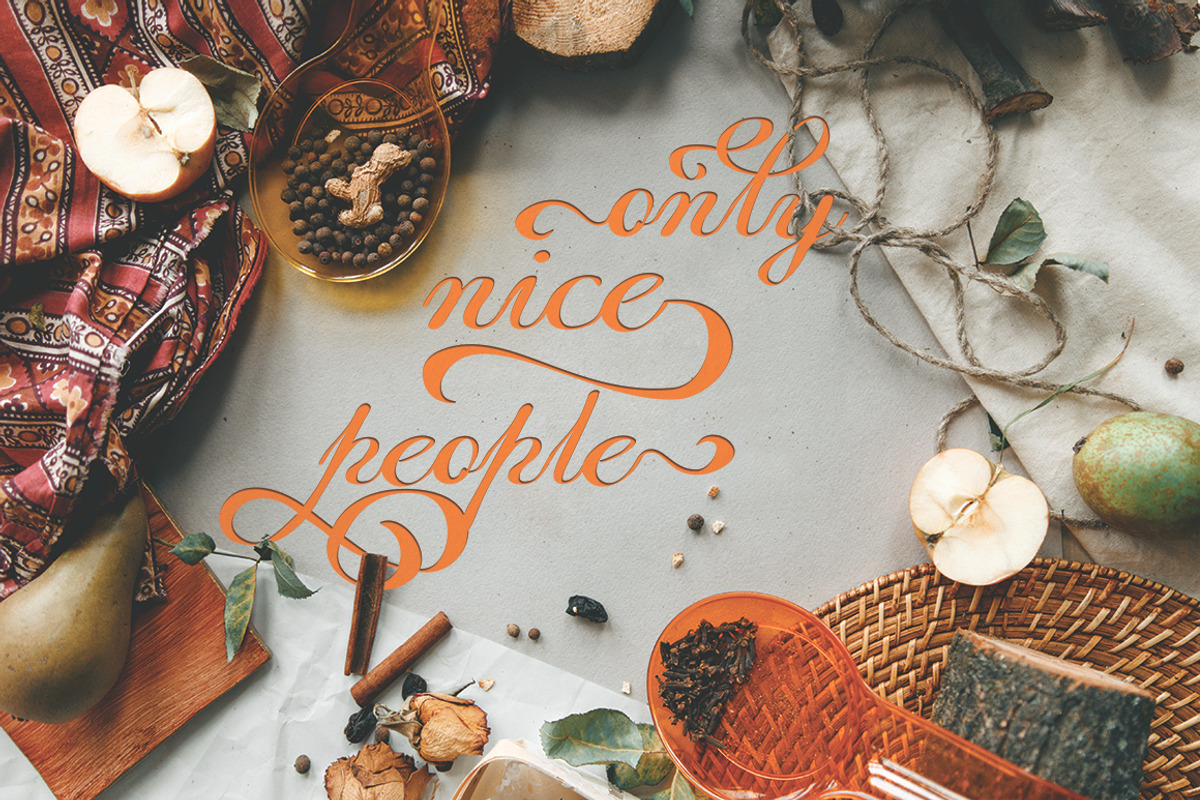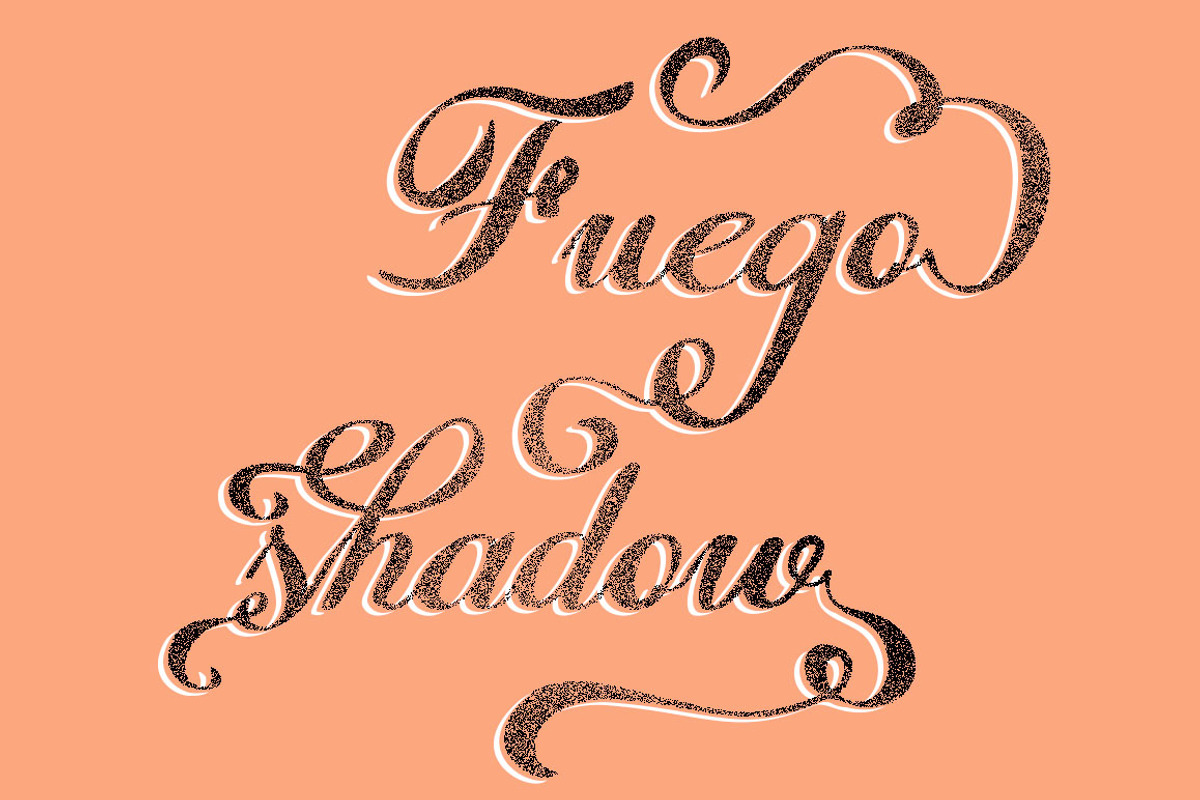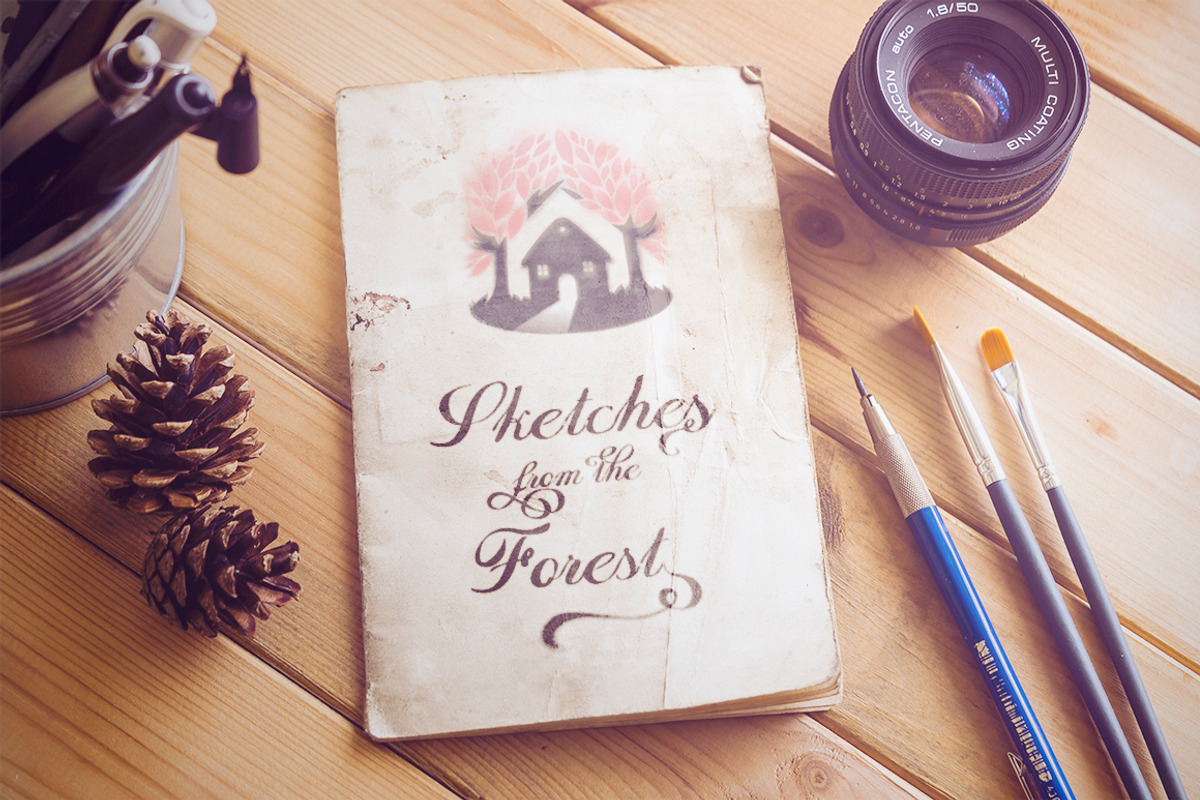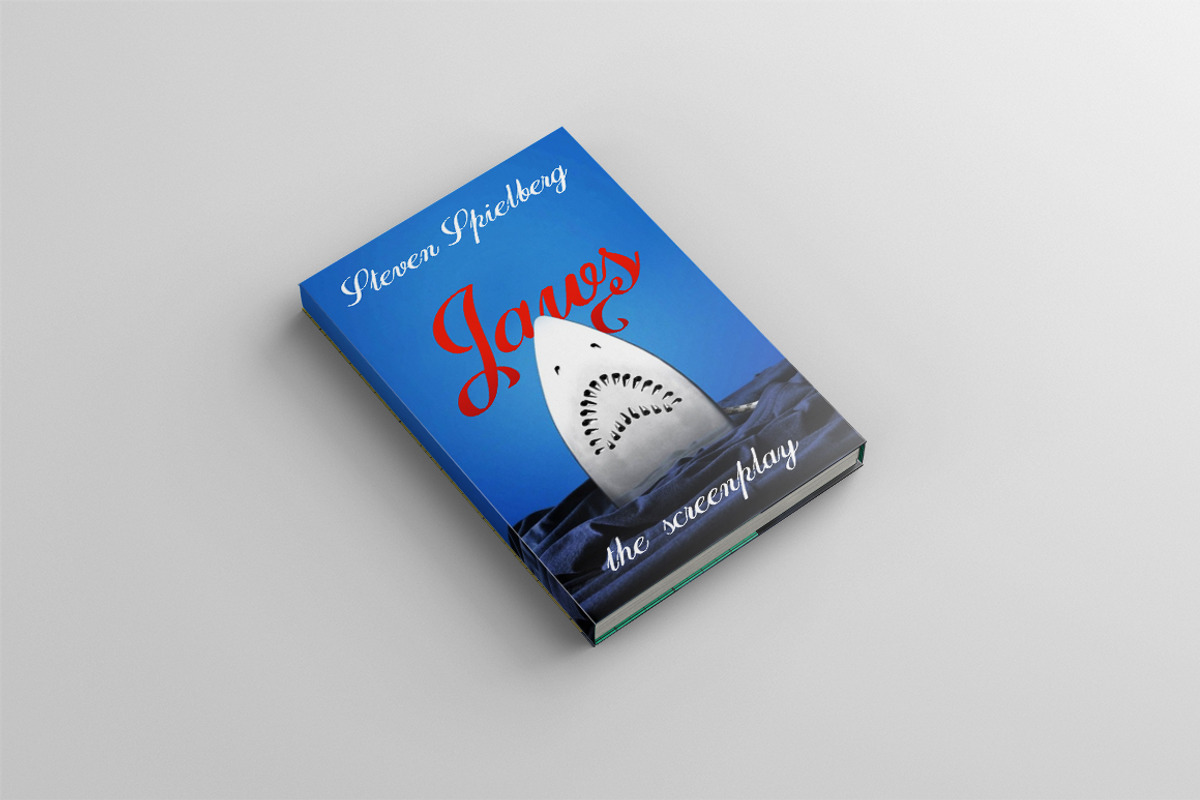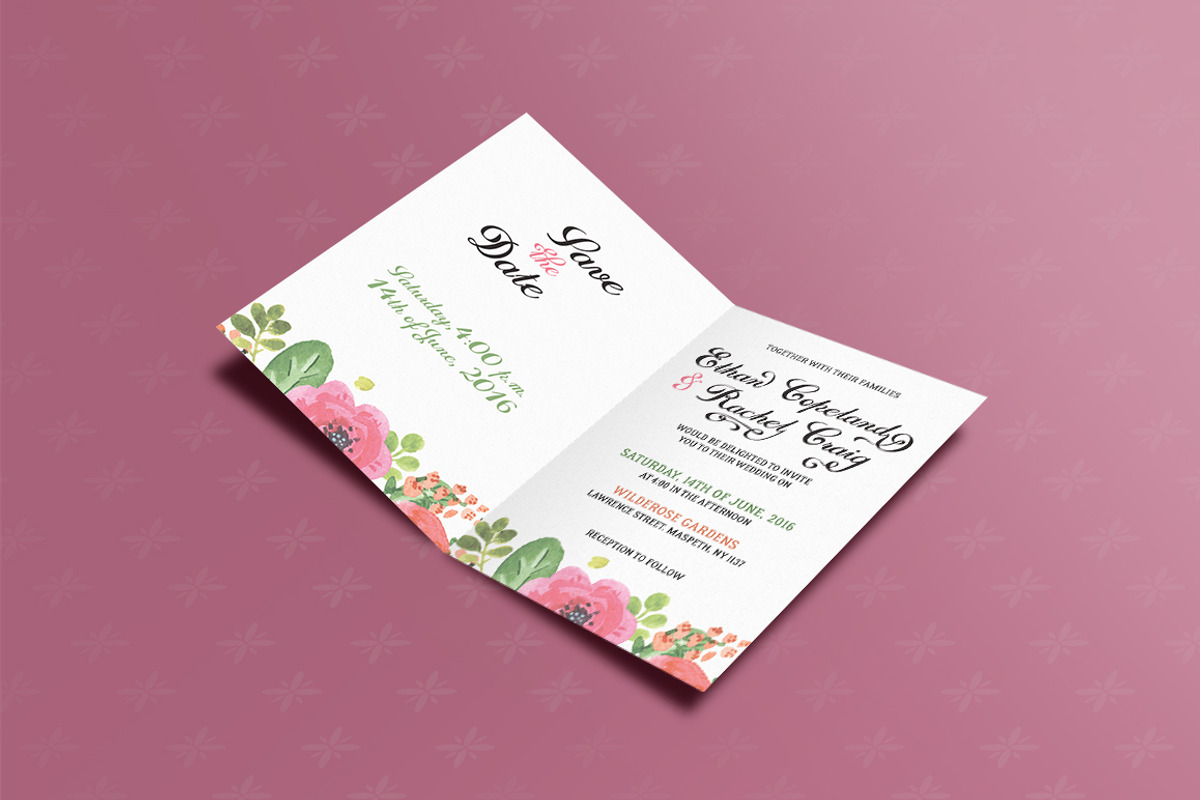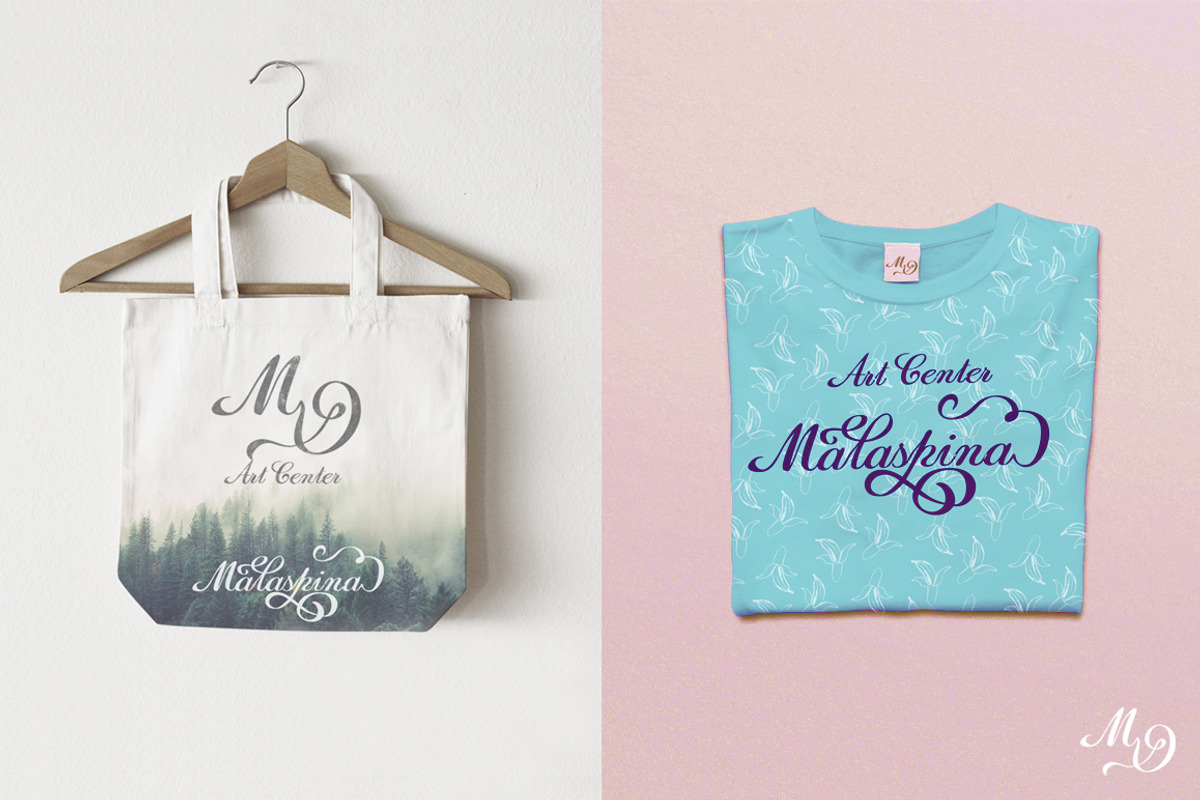
Fuego family upd: shadow font
Fuego family upd: shadow font by Etewut is a font selected for branding, posters, packaging, typography.
- It has a large variety of alternate characters ,allowing you to make each word look completely unique to the next!
Why Fuego family upd: shadow font is worth a look
Fuego family upd: shadow font by Etewut fits naturally into Branding, posters, packaging, typography.